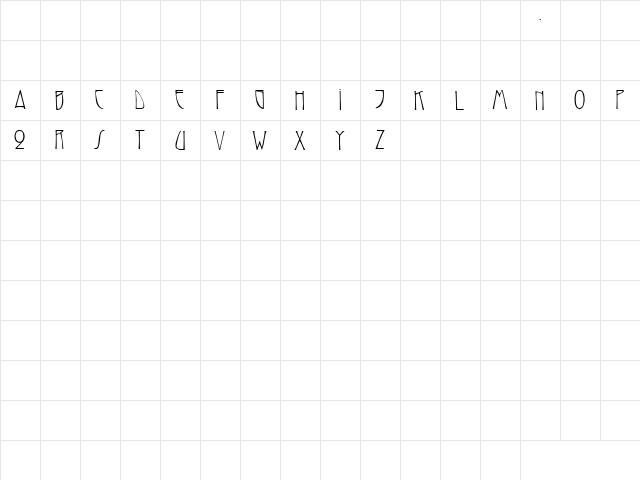
Roadhouse 8 Regular
Design Context for Roadhouse 8 Typeface
Roadhouse 8 is a composed and adaptable typeface that performs quietly and consistently across a wide range of design contexts.